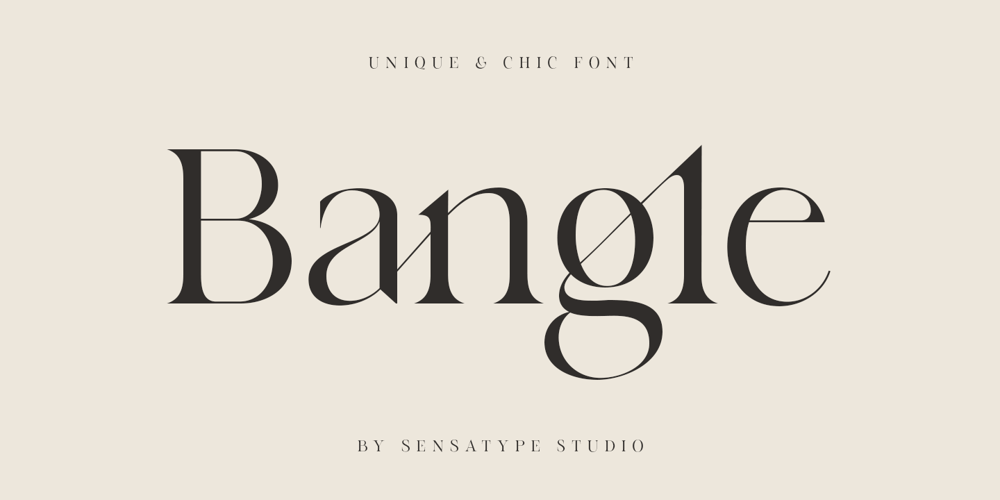
Bangle
Bangle font
Bangle Font Family was designed by Zamroni Hamzah and published by Sensatype Studio. Bangle contains 1 styles and family package options. Based on our experience as a graphic designer who works for a lot of companies, we often are requested to design a logo in a unique style but with an elegant shape. So, we try to brainstorming and create this font to make the idea is going out. This is perfect for BRANDING and LOGO DESIGN. You will get classy, elegant, and certainly unique logos with this font.(Update v.2) Added 10+ ligatures for your needs. :)angle is also included full set of: uppercase and lowercase letters multilingual characters numerals punctuation Wish you enjoy our font and if you have a question, don’t hesitate to drop message & I’m happy to help 🙂